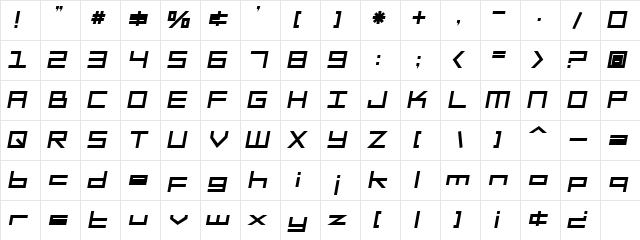
SF Square Head Bold Italic Font Preview
Design Context for SF Square Head Typeface
SF Square Head offers clean, dependable letterforms without strong stylistic allegiance, making it a practical choice for designers who need flexibility. The dynamic lean of this cut emphasises speed and emphasis in any layout. Its bold stroke weight gives it real presence on the page.
Pro Tip: Try SF Square Head for annotation and caption copy alongside an upright companion — the contrast in angle creates a dynamic but ordered typographic system.